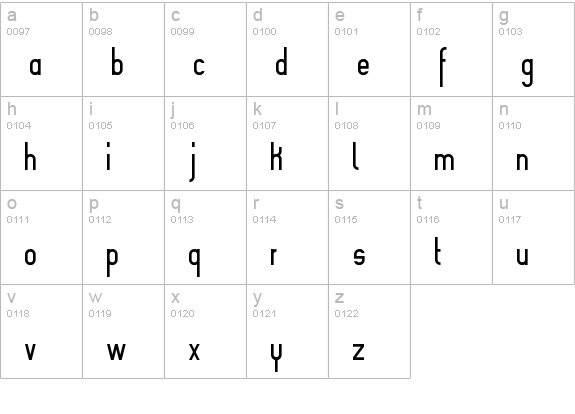
Slimania Font Details
Slimania font is a stunning typeface that exudes elegance and sophistication. With its sleek and slender letterforms, this font is perfect for adding a touch of modernity to any design project. Whether used for headings, logos, or body text, Slimania font is sure to captivate and engage your audience. What sets Slimania font apart is not just its aesthetic appeal, but also the fact that it is free! That's right, you can download this amazing font for absolutely no cost at FontsMarket.com. This makes it an incredibly valuable resource for designers, students, and anyone looking to enhance their creative projects without breaking the bank. Slimania font offers a wide range of characters, including uppercase and lowercase letters, numbers, punctuation marks, and special symbols. Its clean and well-defined lines make it highly legible, ensuring that your message comes across clearly, no matter the size or format. The versatility of Slimania font is another reason why it is a top choice among designers. It works equally well in both print and digital media, making it suitable for a variety of applications such as branding, advertising, packaging, website design, and more. Whether you're a professional designer or a hobbyist, Slimania font is a must-have in your font library. Its modern and sophisticated look is sure to elevate your designs to new heights. So why wait? Head over to FontsMarket.com and download Slimania font for free today!